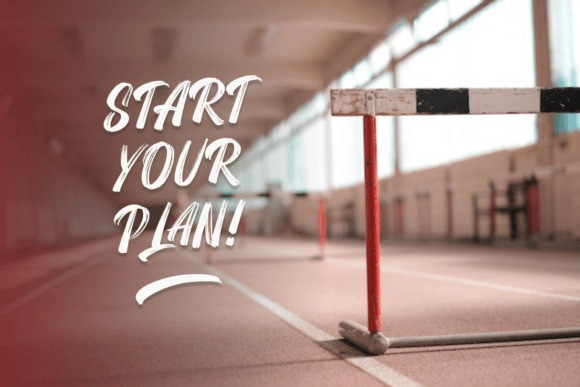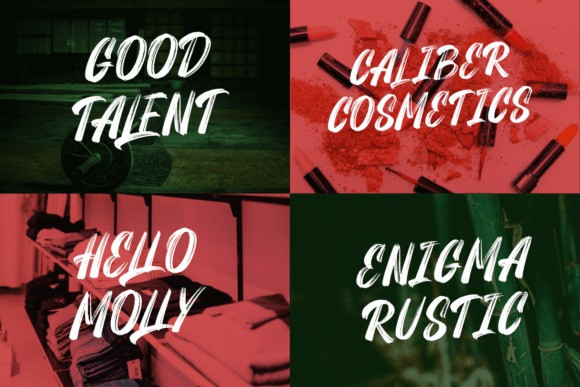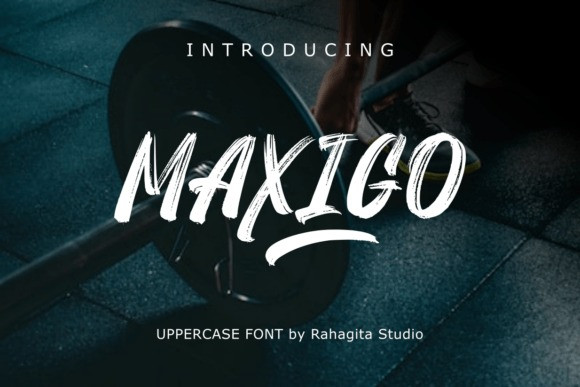
Maxigo Brush Font
Maxigo Brush Font, is a bold and dynamic typeface that exudes energy and creativity. With its expressive brush strokes and commanding uppercase characters, Maxigo brings a distinctive and modern feel to your design projects, making it perfect for headings, titles, brandings, packagings, flyers and logos.